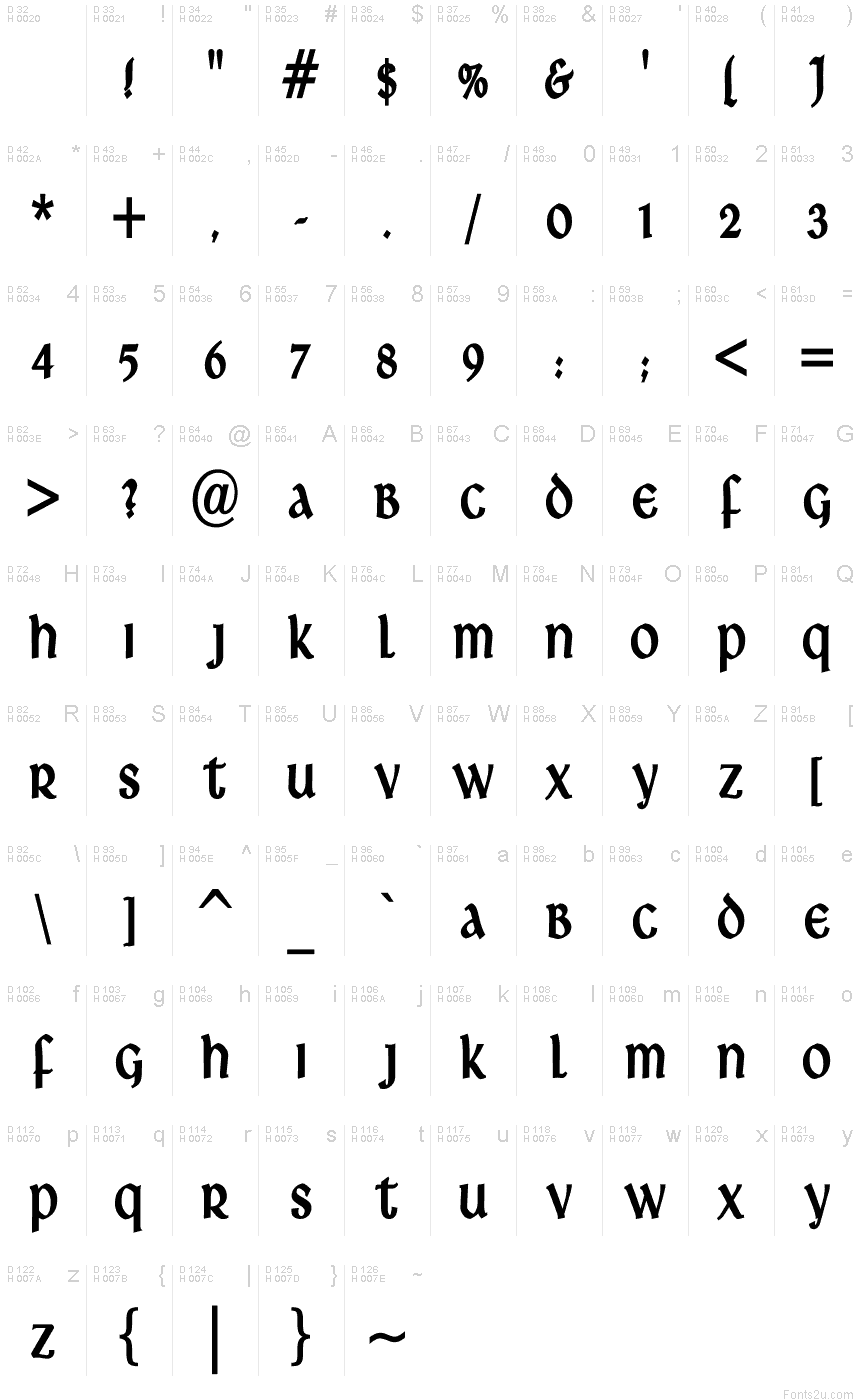
Ardagh
Ardagh font by Anny Mason is a free gothic typeface with a crooked, hand-hewn energy that feels pulled straight from a weathered tavern sign. The letters lean and twist with chunky, ink-heavy strokes and soft, irregular curves, giving words a moody, folk-legend atmosphere instead of rigid medieval formality. It feels tactile and slightly unruly, like it was brushed onto wood in the glow of candlelight.
Using Ardagh, you can give book covers, band logos, game titles, posters, pub signage, festival branding, and craft beer labels a rugged, story-rich voice. This free font works best big, where its uneven rhythm and dark texture can really breathe; pair it with a clean, neutral sans serif for small supporting text so Ardagh takes the spotlight.